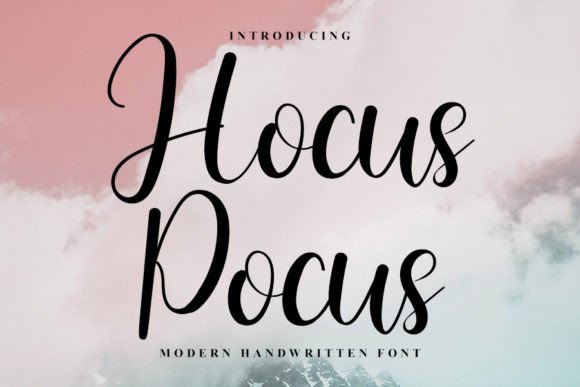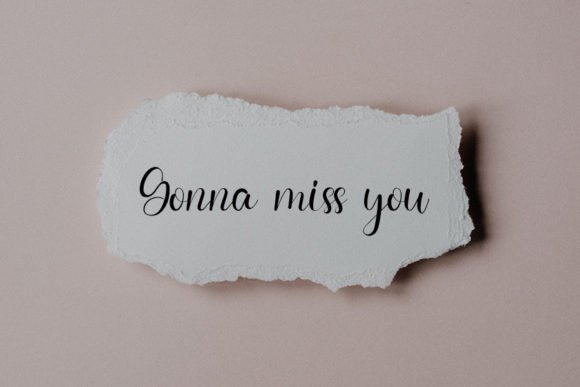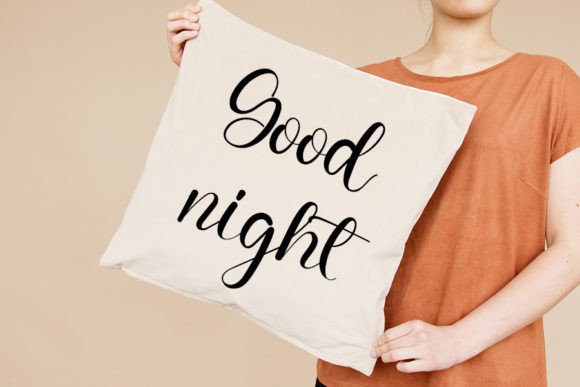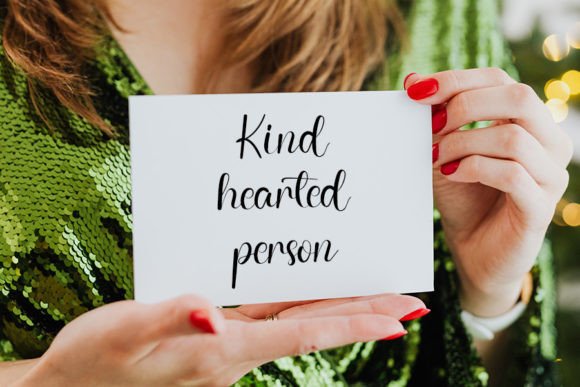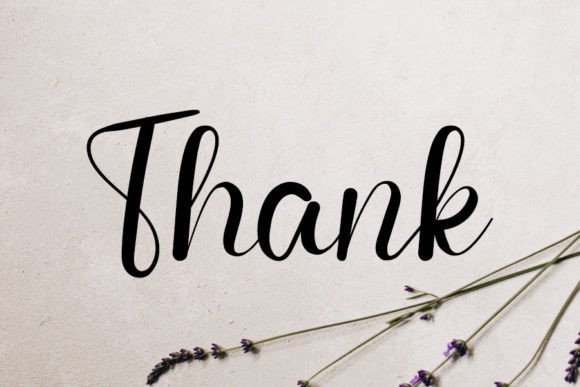
Hocus Pocus Font
Hocus Pocus: A Neat Handwritten Font for Timeless Elegance
Introducing Hocus Pocus – a beautifully crafted handwritten font that exudes elegance and charm. This versatile typeface is perfect for a wide range of creative projects, allowing you to elevate your designs with its unique style.
Key Features of Hocus Pocus Font
• Elegant Handwritten Style: Adds sophistication and a personal touch to your text.
• Timeless Appeal: Captures the essence of classic elegance, making it suitable for any occasion.
• Versatile Application: Ideal for logos, invitations, quotes, and more.
Perfect for Multiple Design Projects
Hocus Pocus’s adaptability makes it an excellent choice for:
• Wedding invitations that set a romantic tone
• Stylish branding materials that reflect your unique identity
• Eye-catching posters that capture attention
• Engaging social media graphics that resonate with your audience
• Memorable greeting cards that convey heartfelt sentiments
Enhancing Your Creative Vision
With Hocus Pocus, you can infuse your designs with a sense of timeless beauty. Its meticulously crafted characters ensure that your content stands out while adding an air of sophistication.
Digital and Print Versatility
Whether you’re working on digital designs or print materials, Hocus Pocus maintains its charm and readability. Use it for:
• Striking website headers that draw in visitors
• Unique email marketing campaigns that engage recipients
• Distinctive product packaging that leaves a lasting impression
Customization Options
Hocus Pocus offers a range of customization options, allowing you to tailor your text to match your creative vision perfectly. This flexibility empowers you to create designs that are as unique as your artistic imagination.
Hocus Pocus is more than just a font; it’s a design asset that elevates your creative projects with elegance and charm. Its handwritten style inspires captivating designs that leave a lasting impression on your audience. By incorporating Hocus Pocus into your designs, you can create visually appealing and memorable content. Whether you’re a professional designer or someone looking to add sophistication to personal projects, Hocus Pocus offers the perfect blend of style and functionality. Consider pairing Hocus Pocus with clean sans-serif fonts for contrast or complementing it with other script fonts for a dynamic typographic palette. This versatility allows you to create designs that are both elegant and harmonious across various mediums and industries. Embrace the timeless elegance of Hocus Pocus today and watch as it transforms your creative ideas into stunning realities!